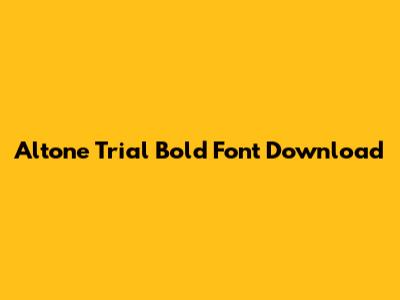
Hey guys! Are you on the hunt for that perfect font to make your designs pop? Look no further! Today, we're diving deep into the world of the Altone Trial Bold Font, a typeface that can seriously elevate your creative projects. Whether you're a seasoned designer or just starting, understanding how to access and use this font is a game-changer. So, let's get started and explore everything you need to know about the Altone Trial Bold Font.
What is Altone Trial Bold Font?
Before we get into the download details, let's talk about what makes the Altone Trial Bold Font so special. This font is a modern, bold typeface designed to grab attention and make a statement. It's perfect for headlines, posters, branding, and any project where you need a strong, impactful visual presence. The Altone Trial Bold Font often features clean lines and a contemporary feel, making it versatile enough for various design styles. The "Trial" version means it's a limited version, usually for testing purposes, which allows you to explore its features before committing to a full license.
The importance of using the right font cannot be overstated. Think of fonts as the voice of your design; they convey tone, personality, and professionalism. A well-chosen font can significantly enhance readability and user experience. For instance, imagine a sleek tech company using a playful, cartoonish font—it just wouldn't align with their brand! Similarly, a children’s book using a serious, corporate font would miss the mark entirely. The Altone Trial Bold Font, with its bold and modern aesthetic, can be a fantastic choice for projects that need to project confidence and modernity. Its strong visual presence ensures your message is not only seen but also felt. When selecting a font like Altone Trial Bold, consider your target audience and the overall message you want to communicate. This font is particularly effective for branding materials, advertising campaigns, and website headers where making a bold statement is crucial.
Why Use Altone Trial Bold Font?
So, why should you specifically go for the Altone Trial Bold Font? There are several compelling reasons. First off, the boldness ensures your text stands out. In a world saturated with visual content, grabbing attention is half the battle. Secondly, the trial version allows you to experiment and see if it truly fits your project without spending any money. It’s like test-driving a car before buying it! Moreover, the Altone Trial Bold Font often comes with a commercial license for trial use, so you're covered legally during your testing phase. Its modern design can bring a contemporary edge to your work, setting you apart from the competition. The Altone Trial Bold Font is particularly useful when you need to create a sense of urgency or importance. Think of promotional materials for a limited-time offer, event posters, or website call-to-action buttons. The font's strong visual impact ensures these elements are immediately noticed, driving engagement and conversions. Plus, using a trial font can give you valuable insights into how the full version might benefit your future projects. You can assess its readability across different devices, its compatibility with various design software, and its overall aesthetic appeal within your specific design context.